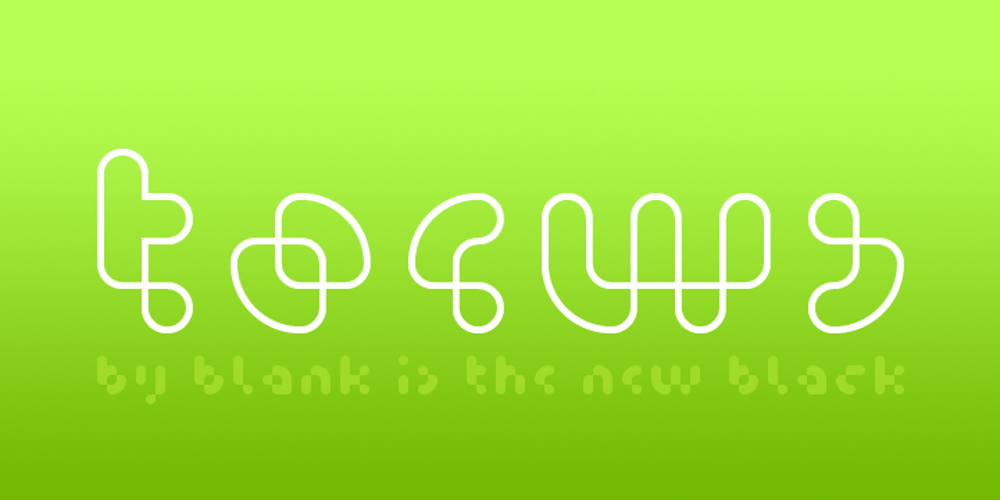
Toews Font Family was designed by Thomas Johnson Quinn and published by Blank Is The New Black. Toews contains 2 styles and family package options. Toews is a continuation of the work started with Versteeg, Huet, and Niemi. It combines the elements of the letterforms found in Huet and Niemi and uses the letterform outlines to create shapes that intersect with themselves. While Huet and Niemi can easily be outlined in most design programs, Toews outlining would not work smoothly in most programs, which is why an outlined version is available. The two styles are carefully designed to be able to transition from one to another smoothly within the same type field.